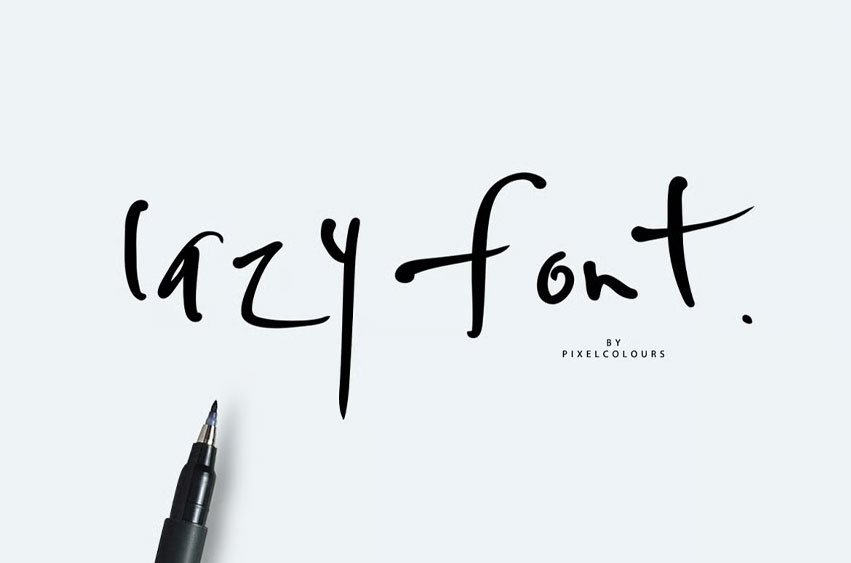
Lazy Font inspired me to work! To work on this lazy-looking font.
With a free style and strokes that look like fresh ink, this font will make your design pop!